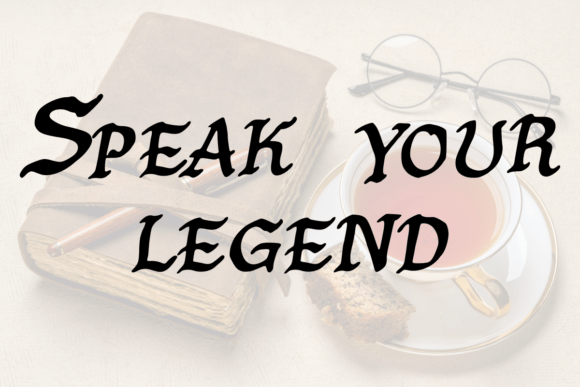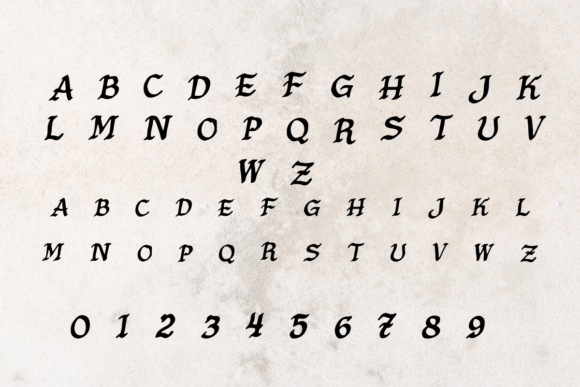
Gothique Flare Font: Elevate Your Designs with a Touch of Vintage Gothic Elegance
In the realm of typography, few fonts capture the essence of mystery, elegance, and dark romance as effectively as the Gothique Flare Font. This vintage-inspired gothic serif font is a masterpiece of design, boasting subtle calligraphic strokes and sharp details that instantly evoke a sense of medieval mystique and fantasy. Whether you’re a designer looking to craft compelling book covers, a tarot card artist seeking to infuse your creations with an air of enigma, or a brand strategist aiming to develop a dark-themed logo or medieval-style branding, Gothique Flare is the perfect choice to elevate your projects.
The Essence of Gothique Flare
Gothique Flare Font stands out with its unique blend of gothic serifs and calligraphic elements. The subtle calligraphic strokes add a fluid, handcrafted feel to the font, while the sharp details contribute to its bold and dramatic appearance. This combination results in a font that is not only visually striking but also rich in character and personality. The vintage inspiration behind Gothique Flare gives it a timeless quality, making it suitable for a wide range of design applications, from historical and fantasy themes to modern and edgy projects.
Ideal for Fantasy and Dark-Themed Designs
Fantasy book covers, tarot card designs, and dark-themed logos are just a few examples of where Gothique Flare truly shines. The font’s ability to convey mystery, drama, and a touch of the unknown makes it an invaluable asset for designers working in these genres. For fantasy book covers, Gothique Flare can help create an immersive and captivating title that promises readers an epic journey into the unknown. In tarot card designs, the font’s gothic elegance can enhance the mystical and symbolic nature of the cards, offering a deeper connection to the reader. For dark-themed logos and branding, Gothique Flare provides a distinctive and memorable visual identity that sets a brand apart from its competitors.
Medieval Branding and Beyond
Beyond its applications in fantasy and dark-themed designs, Gothique Flare also lends itself beautifully to medieval-style branding. The font’s gothic roots and calligraphic flair evoke the grandeur and craftsmanship of the medieval era, making it an excellent choice for brands looking to convey a sense of tradition, heritage, and quality. Additionally, Gothique Flare’s versatility means it can be adapted to a variety of design contexts, from product packaging and advertising to digital media and web design.
Why Choose Gothique Flare?
So, why should designers and crafters choose Gothique Flare for their projects? Here are a few compelling reasons:
- Unique Aesthetic: Gothique Flare offers a distinctive blend of gothic serifs and calligraphic strokes, providing a unique aesthetic that sets it apart from more common fonts.
- Versatility: The font’s versatility makes it suitable for a wide range of design applications, from print to digital media.
- Timeless Appeal: With its vintage inspiration, Gothique Flare possesses a timeless quality that ensures it will remain relevant and stylish for years to come.
- Ease of Use: Despite its intricate details, Gothique Flare is designed to be easy to read and use, making it accessible for designers of all skill levels.
Gothique Flare Font is a powerful tool for designers and crafters looking to infuse their projects with a sense of mystery, elegance, and dark romance. Its unique blend of gothic serifs and calligraphic strokes, combined with its versatility and timeless appeal, make it an excellent choice for a wide range of design applications. Whether you’re working on fantasy book covers, tarot card designs, dark-themed logos, or medieval-style branding, Gothique Flare is sure to elevate your creations and leave a lasting impression on your audience.